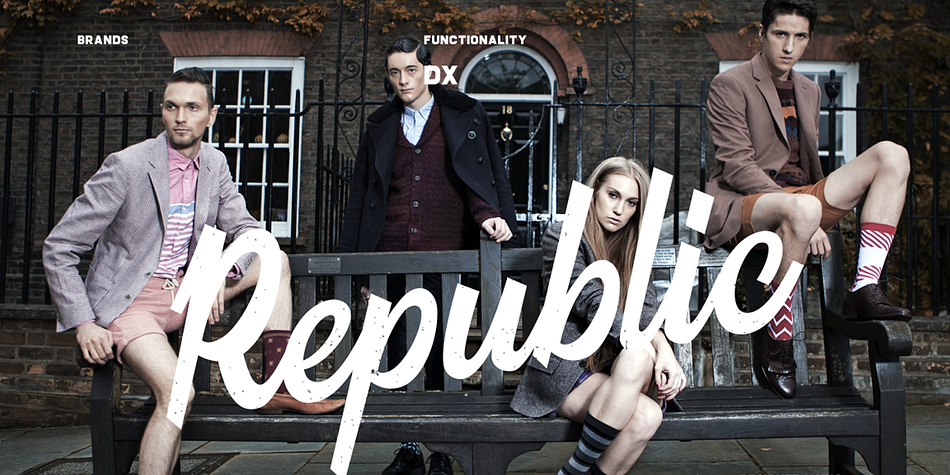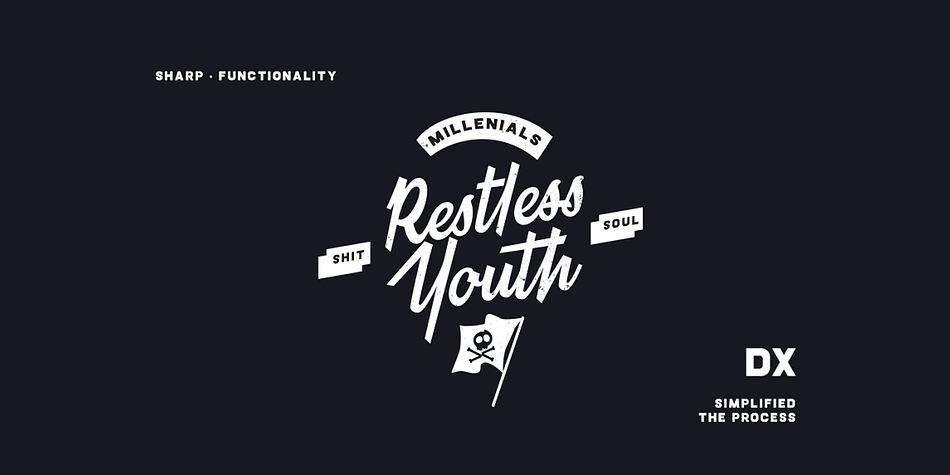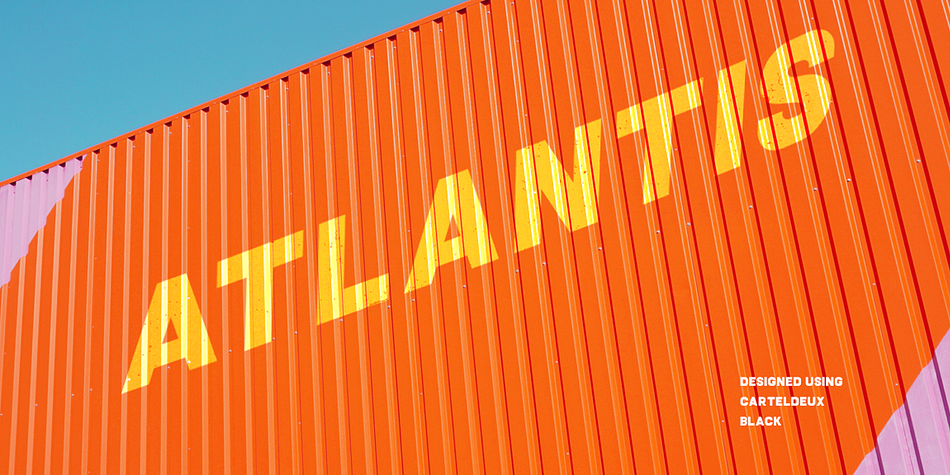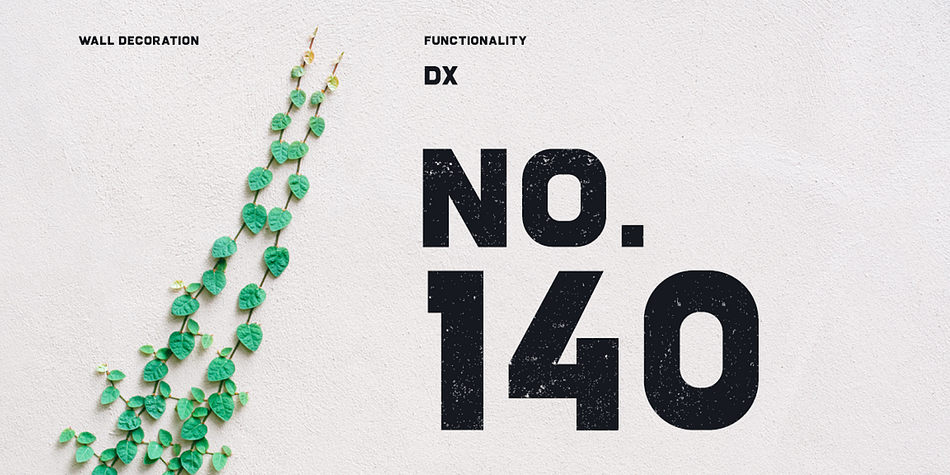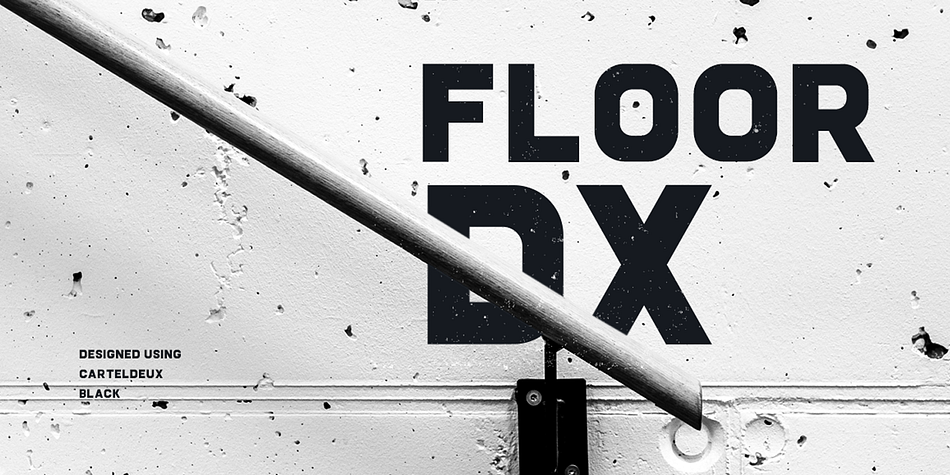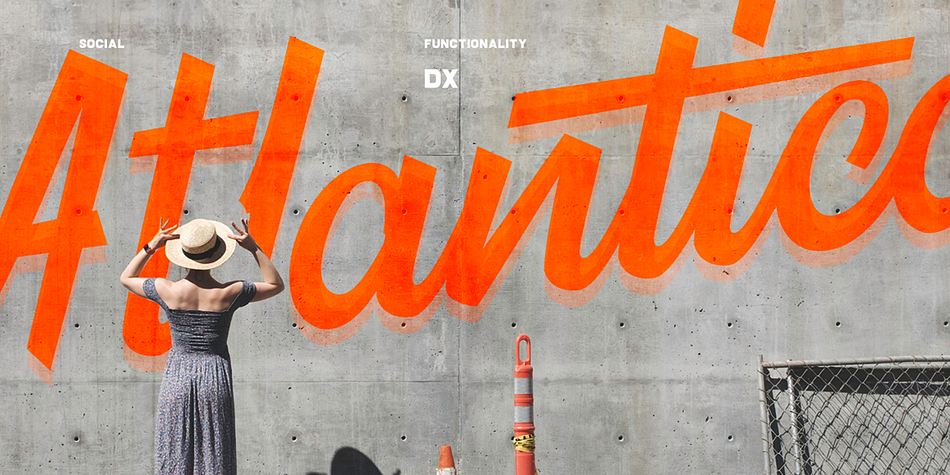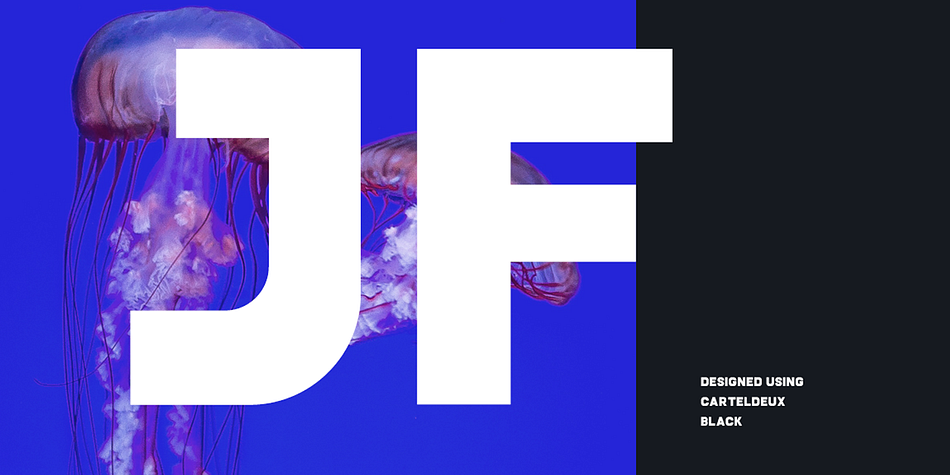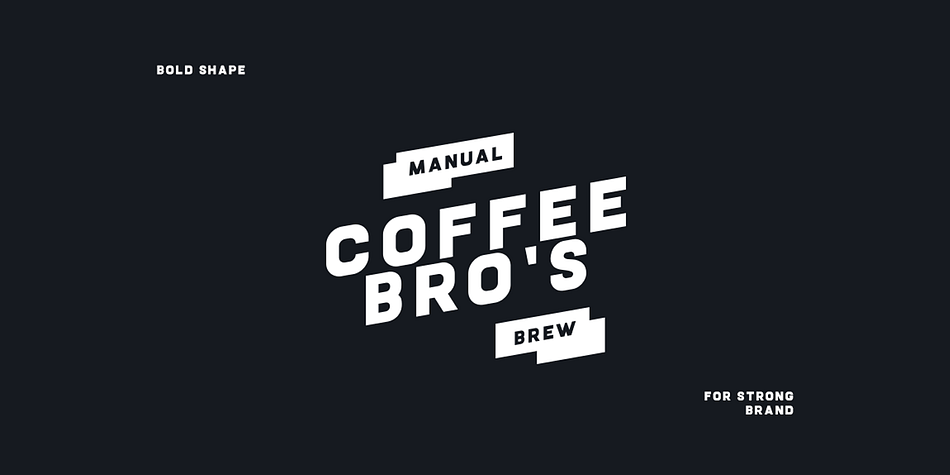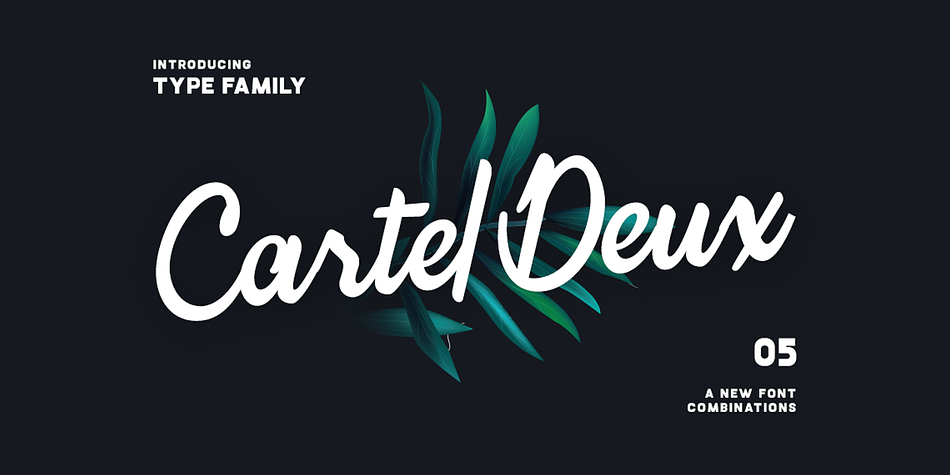
Cartel Deux is a multiple classification font family. This typeface has five styles and was published by Firman Ananda.
Cartel Deux is a combination of fonts including a script and bold style and also smooth and sharp scripts. To complete the set of fonts, Cartel Deux offers 5 styles.
Styles | Brush Script, Display, Display Sans, Hand Drawn |